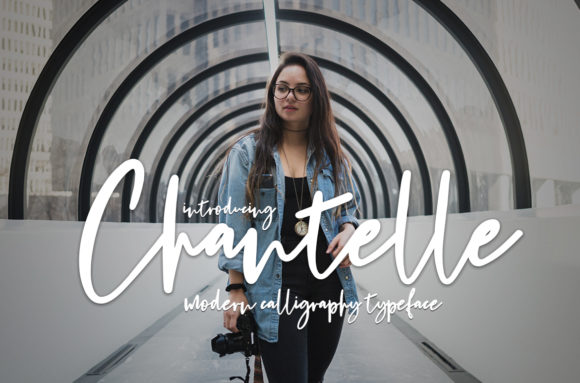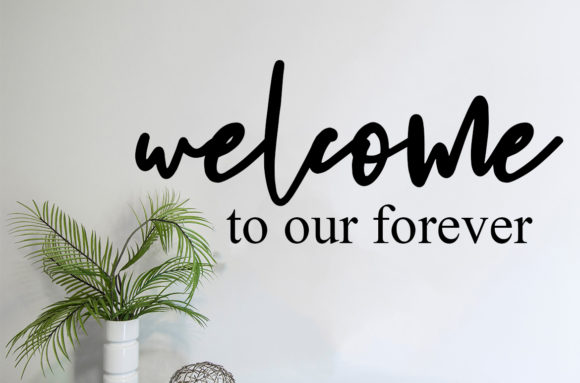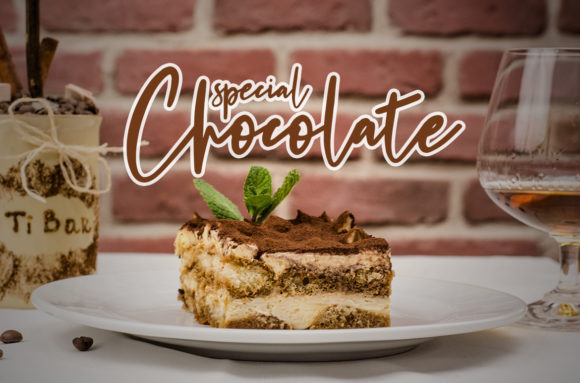
Chantelle Font
About Chantelle Font
Chantelle is charming handwritten font with an undeniably personal feel. Get inspired by its modern swashes, and add an authentic charm to any design project!